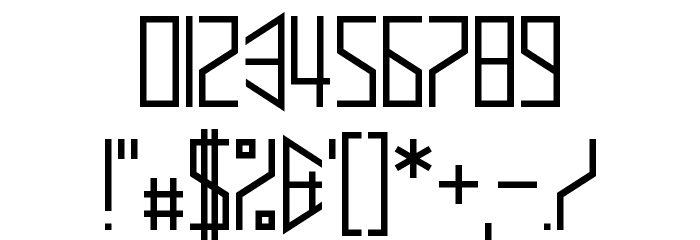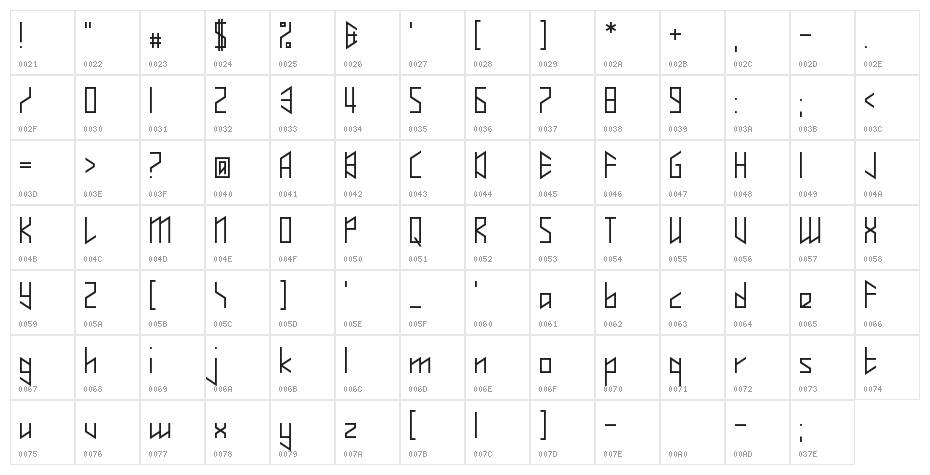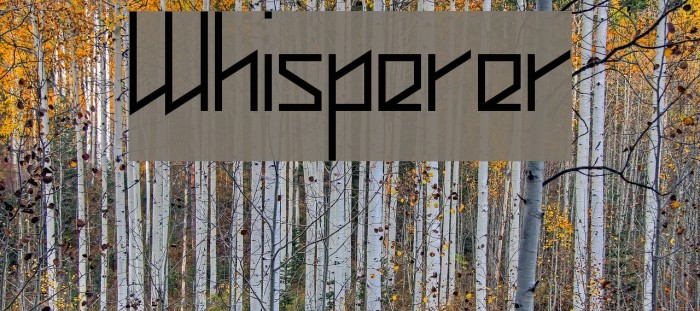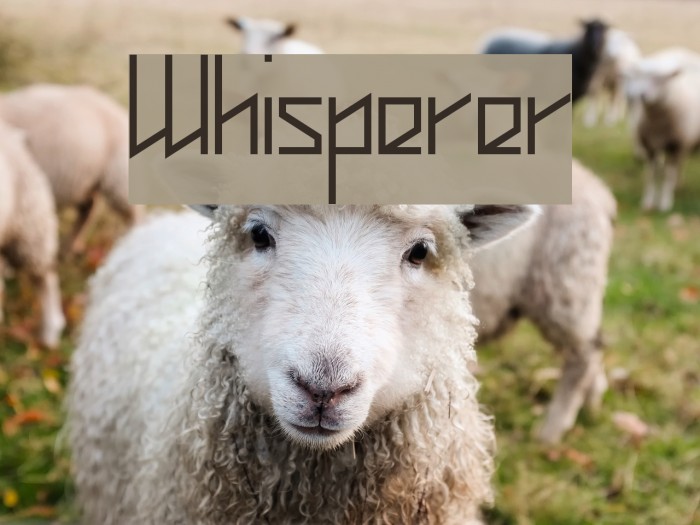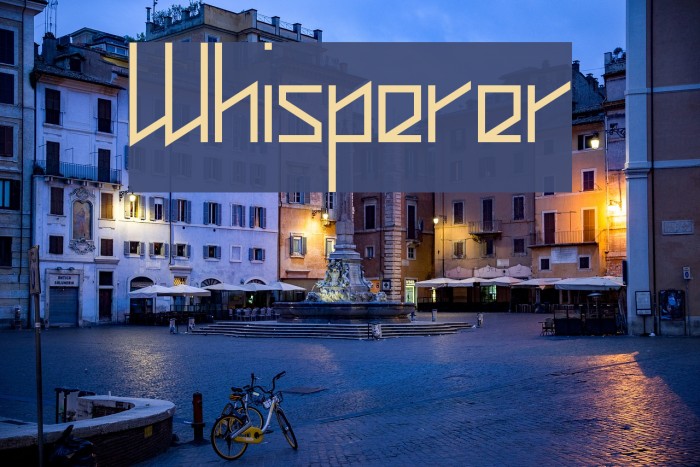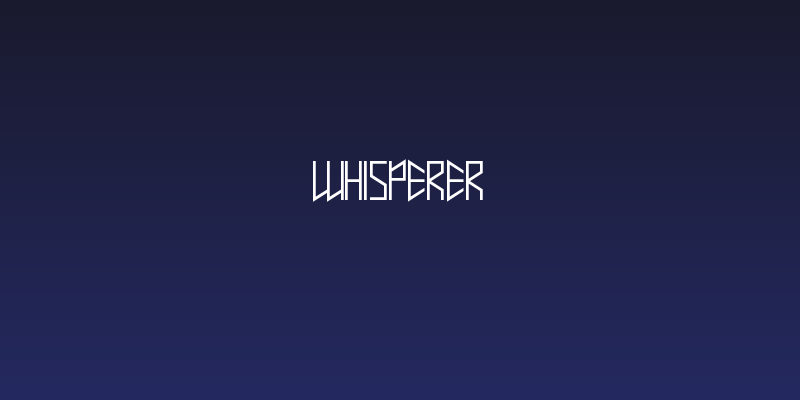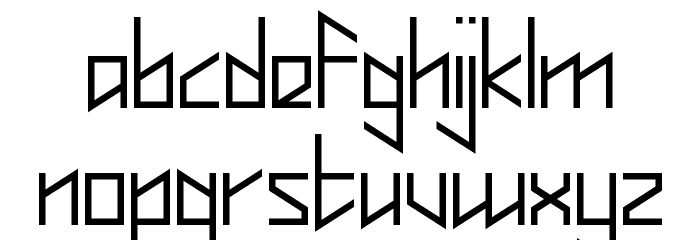
Whisperer Font
Whisperer Description
This font features a geometric and angular design, characterized by sharp edges and a consistent line weight throughout. The uppercase and lowercase letters maintain a uniform height, giving it a structured and cohesive appearance. The numerals and special characters follow the same angular style, ensuring a seamless integration across all text elements. The font's modern aesthetic is enhanced by its clean lines and minimalistic approach, making it suitable for contemporary design projects. Its unique style is both eye-catching and versatile, allowing for creative expression in various contexts.